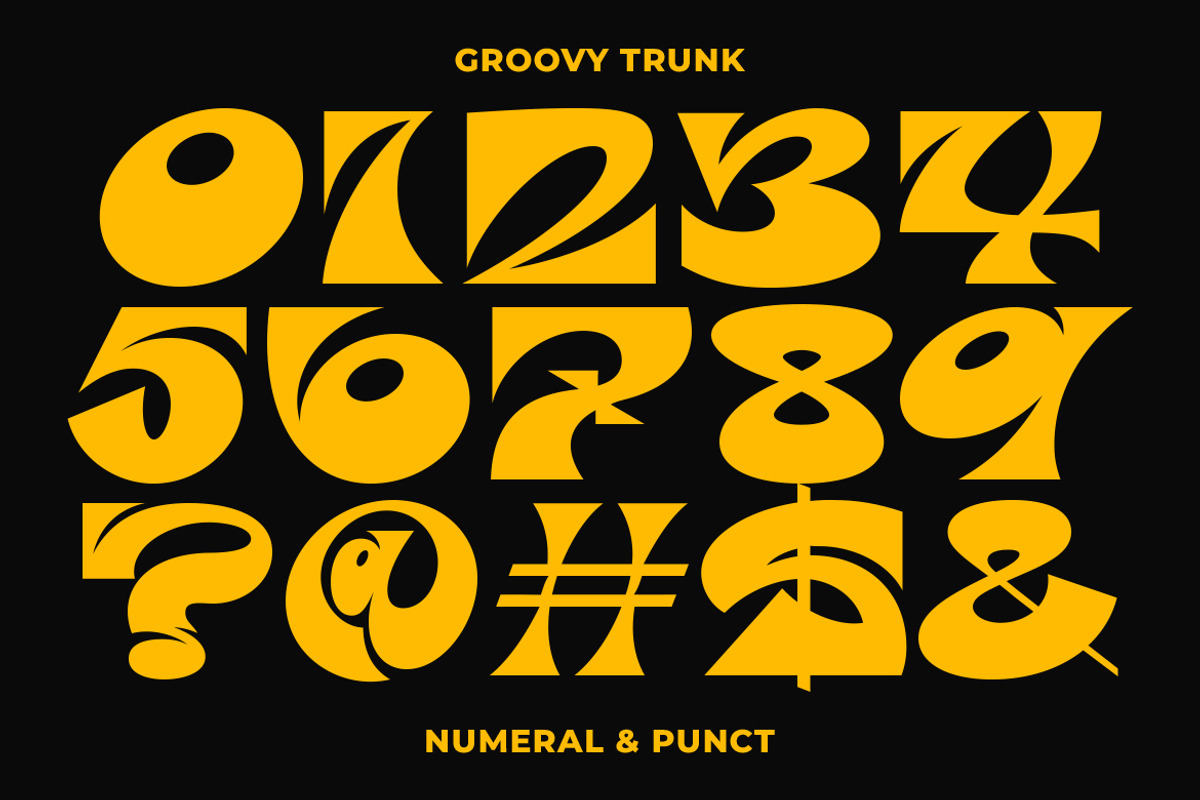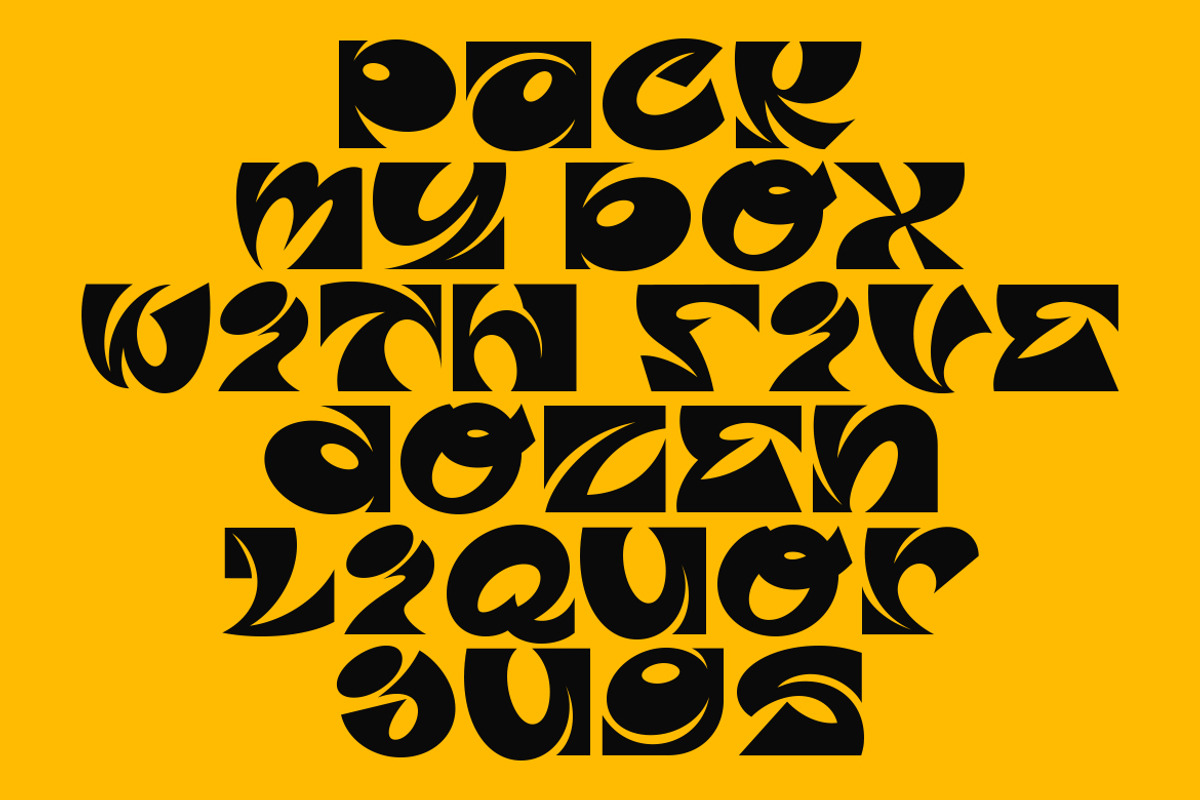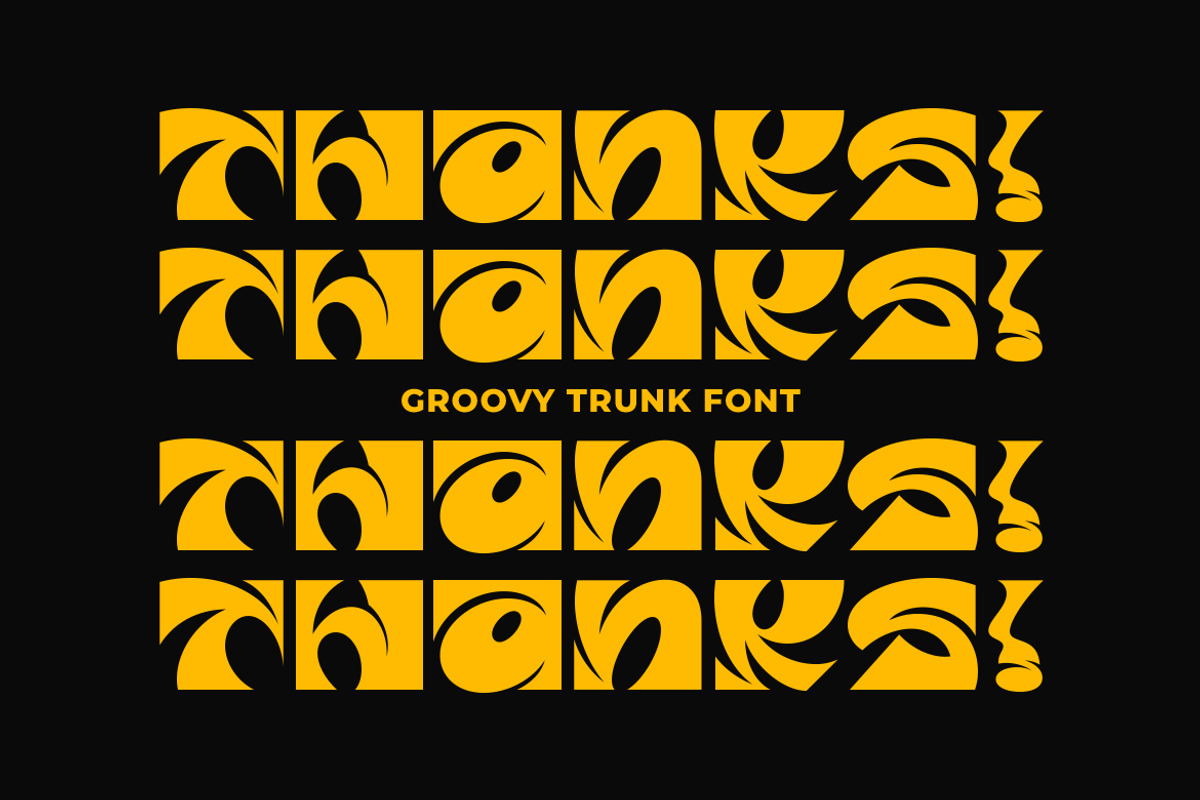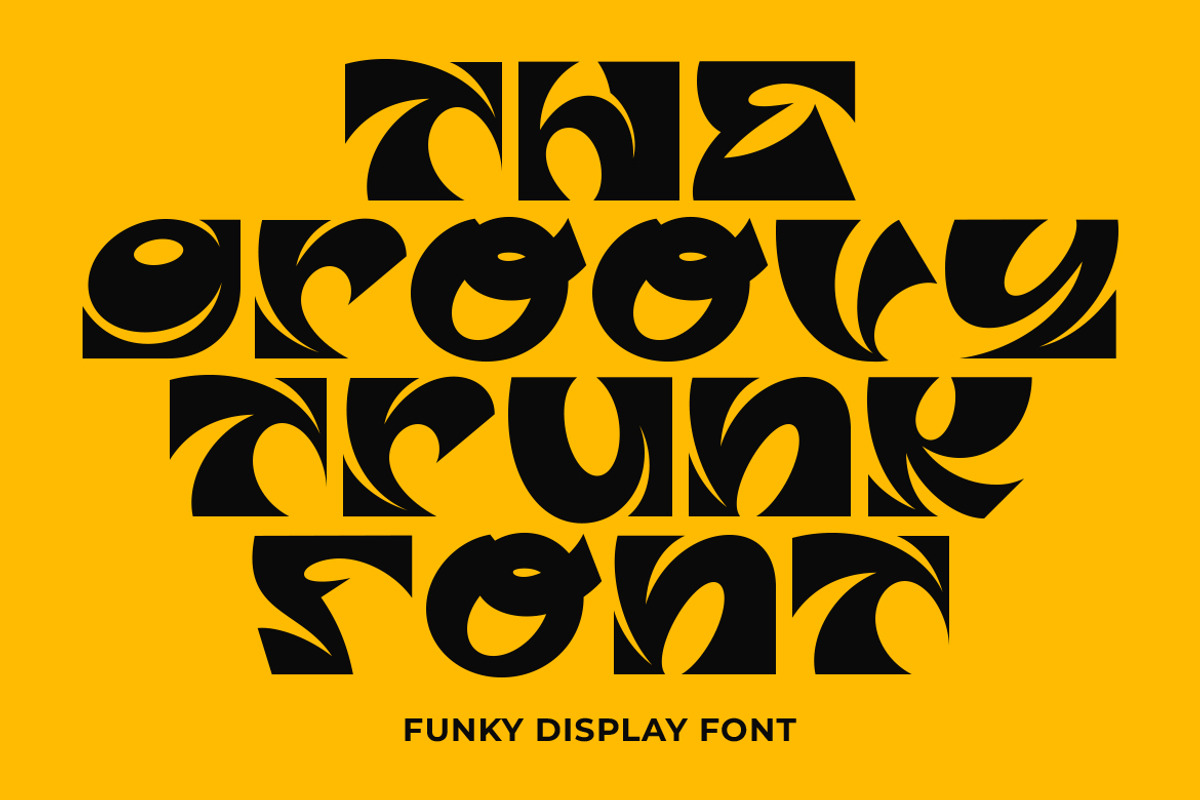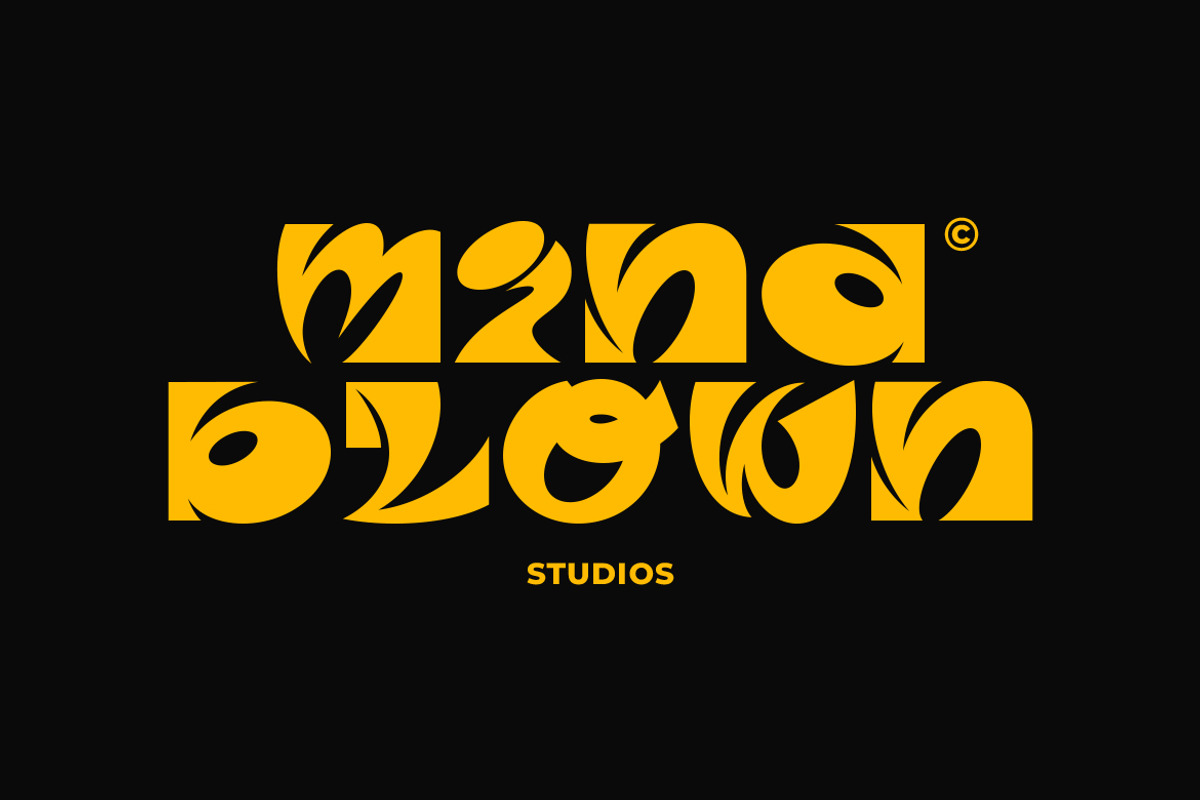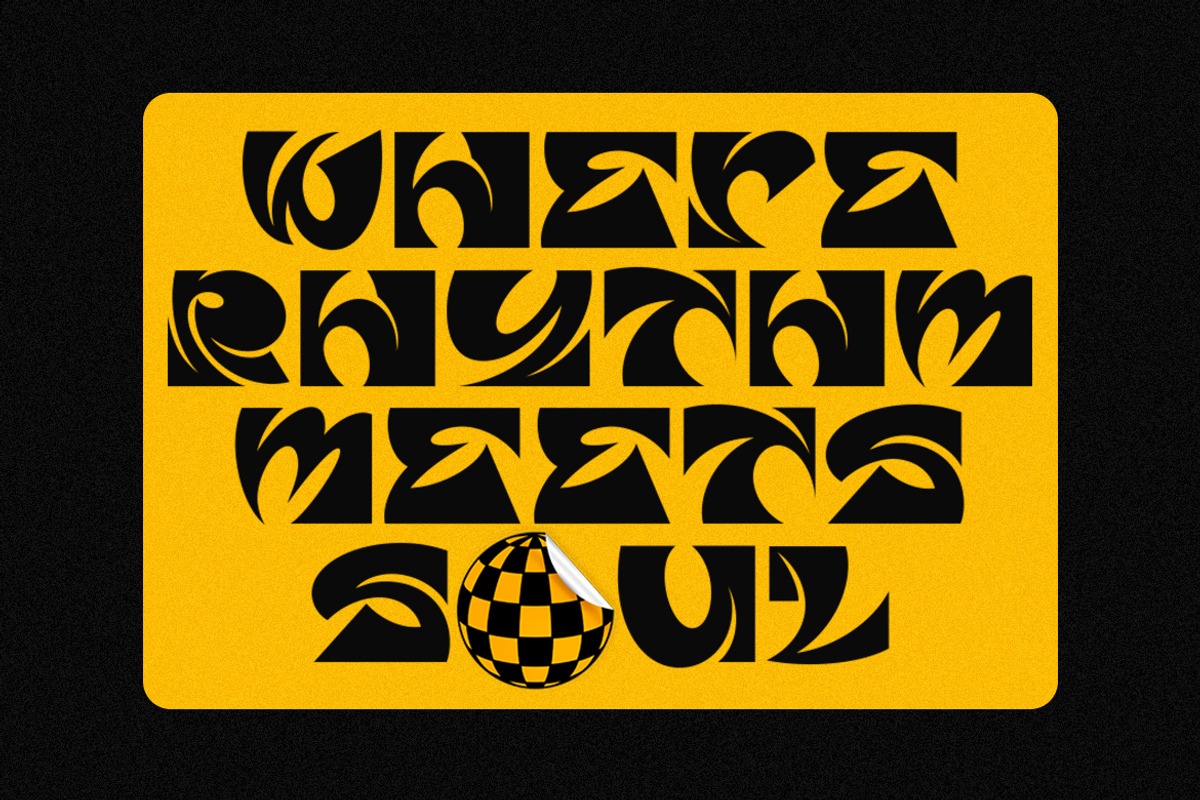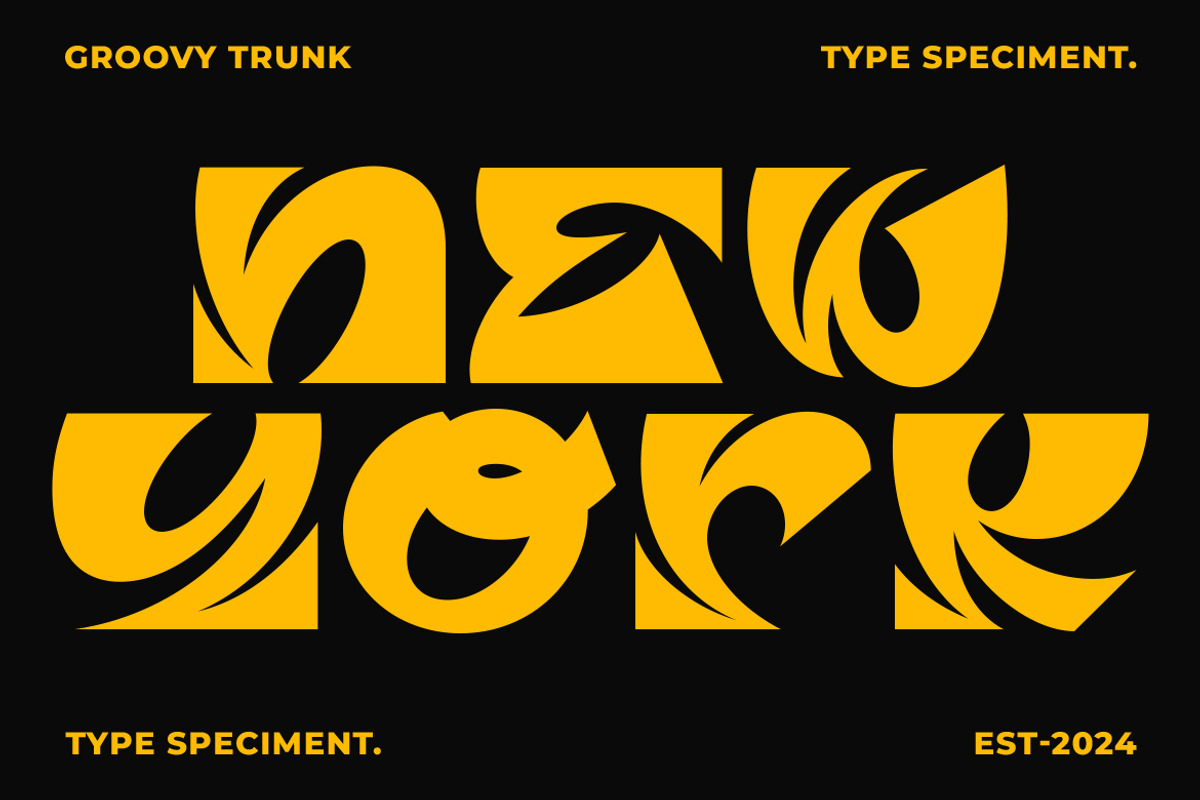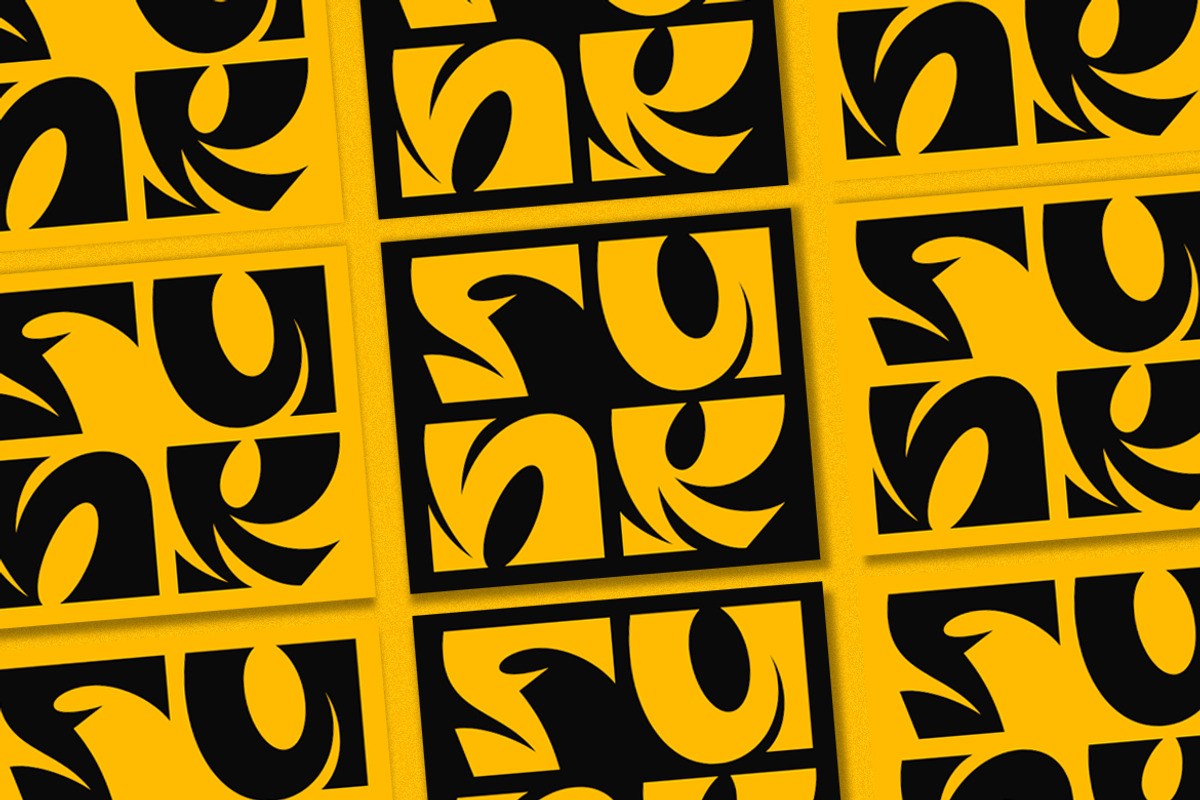
GF Trunk - Funky Display Font
Groovy Trunk is a funky display font that has a retro feel to it with its strong design.
Despite its funky feel, this typeface remains highly readable, making it both stylish and functional.
Whether used in headlines, posters, or branding projects, Groovy Trunk effortlessly blends retro charm with modern appeal, adding a touch of personality and style to any design.